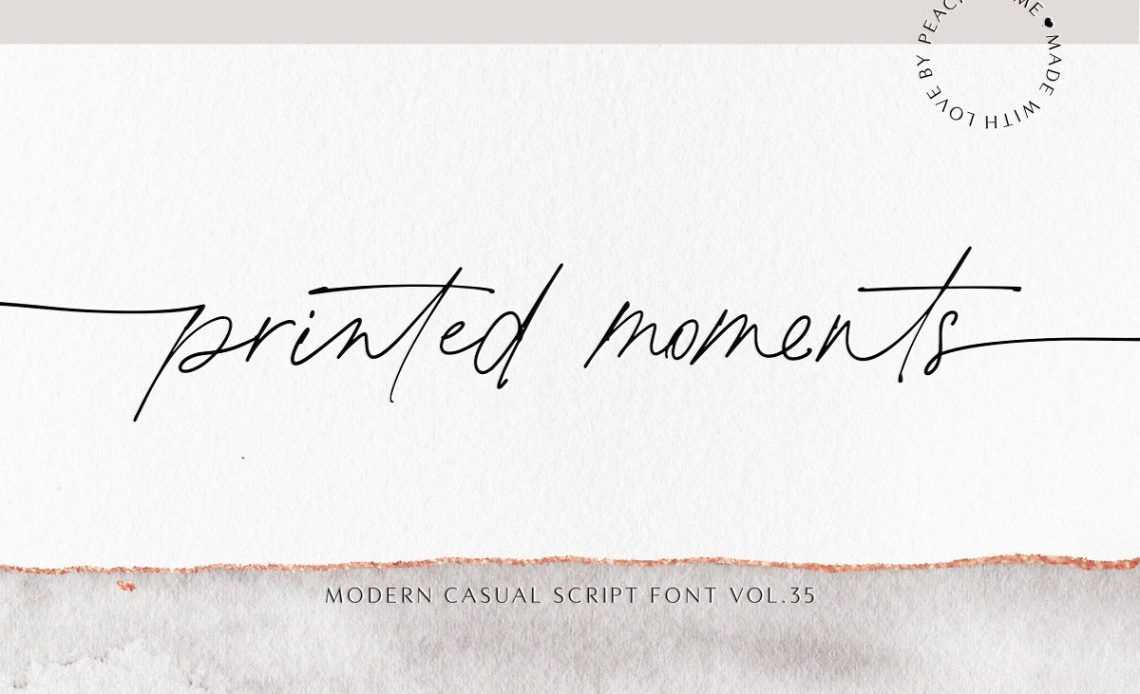
Welcome to the world of modern casual script fonts! Introducing Printed Moments, a unique and stylish font created by PeachCreme that is sure to elevate your design game. This font family is perfect for creatives who want to add a touch of personality and sophistication to their projects.
Printed Moments is not your ordinary font. It boasts a smooth ball pen texture that is both modern and chic, making it stand out from other fonts in its class. The font includes a full set of uppercase and lowercase letters, multilingual symbols, numerals, punctuation, and 134 ligatures, giving you endless possibilities to create the perfect look for your project.
But that's not all - Printed Moments also comes with beginning and ending lowercase ligatures, adding a unique touch to your typography. With this font, you can create a variety of designs, from elegant invitations to modern logos and everything in between.